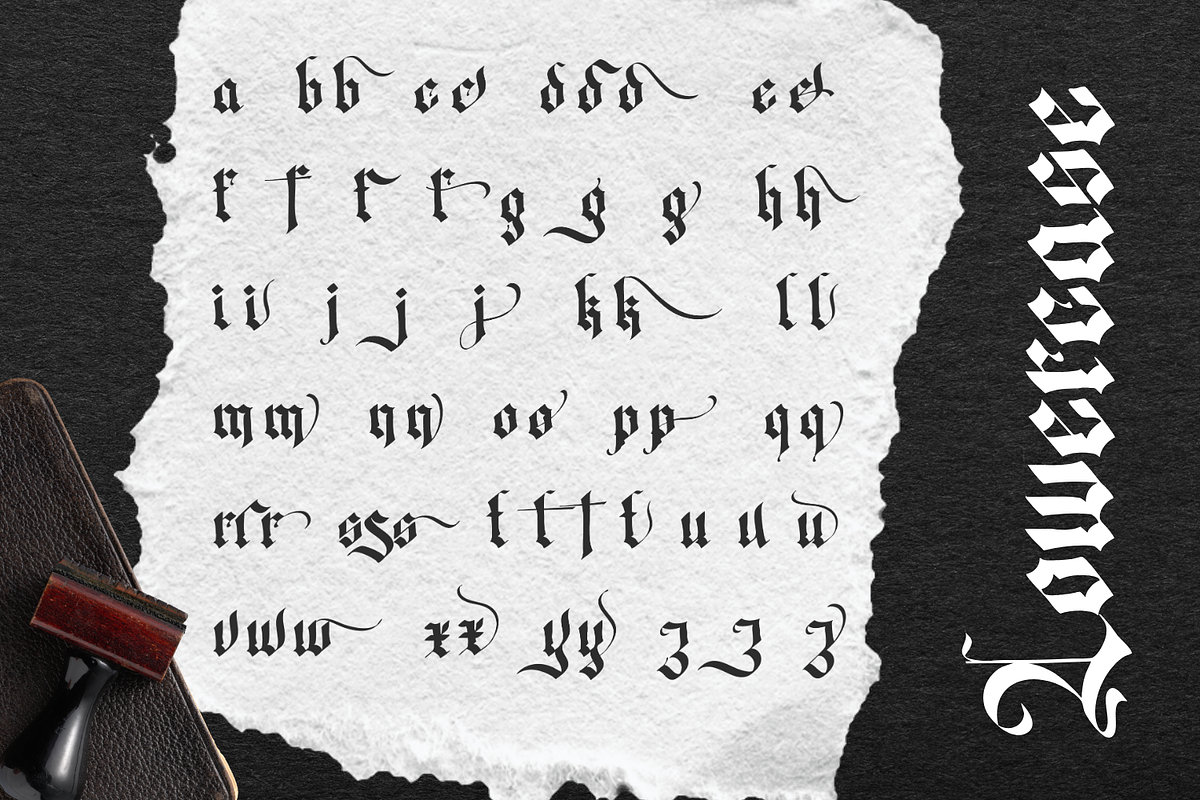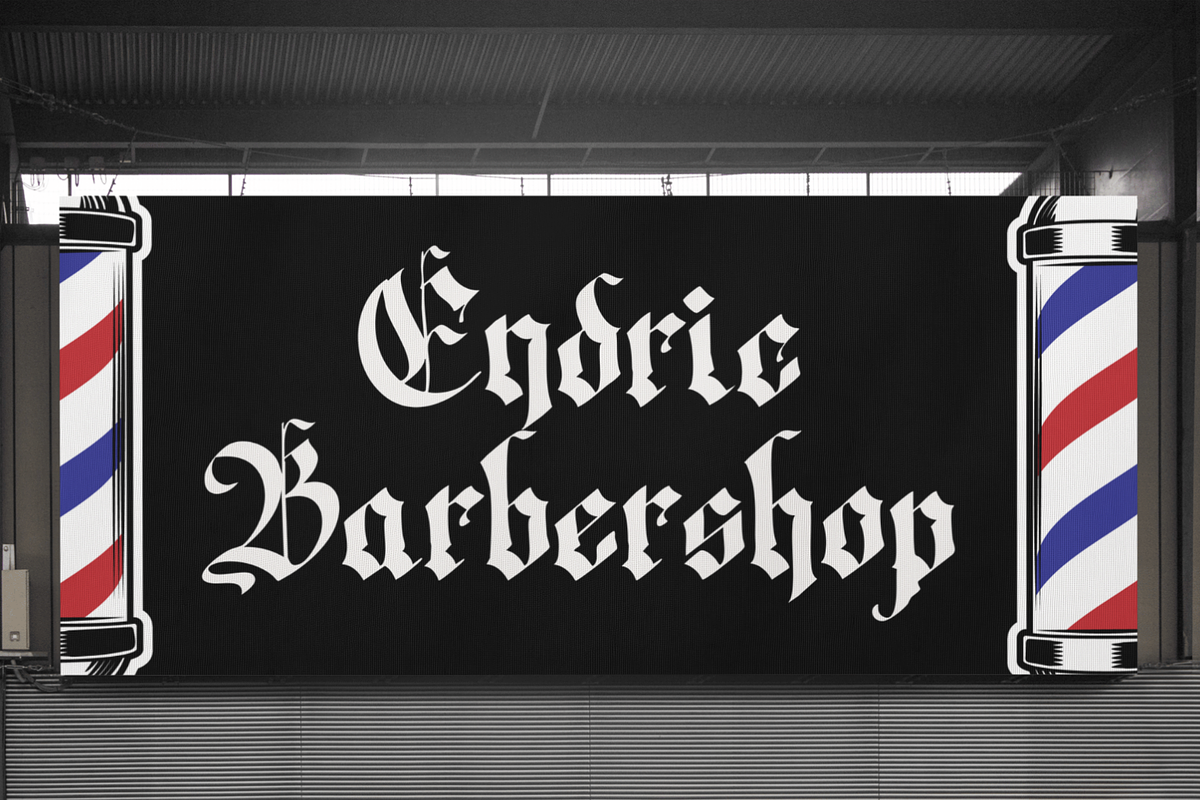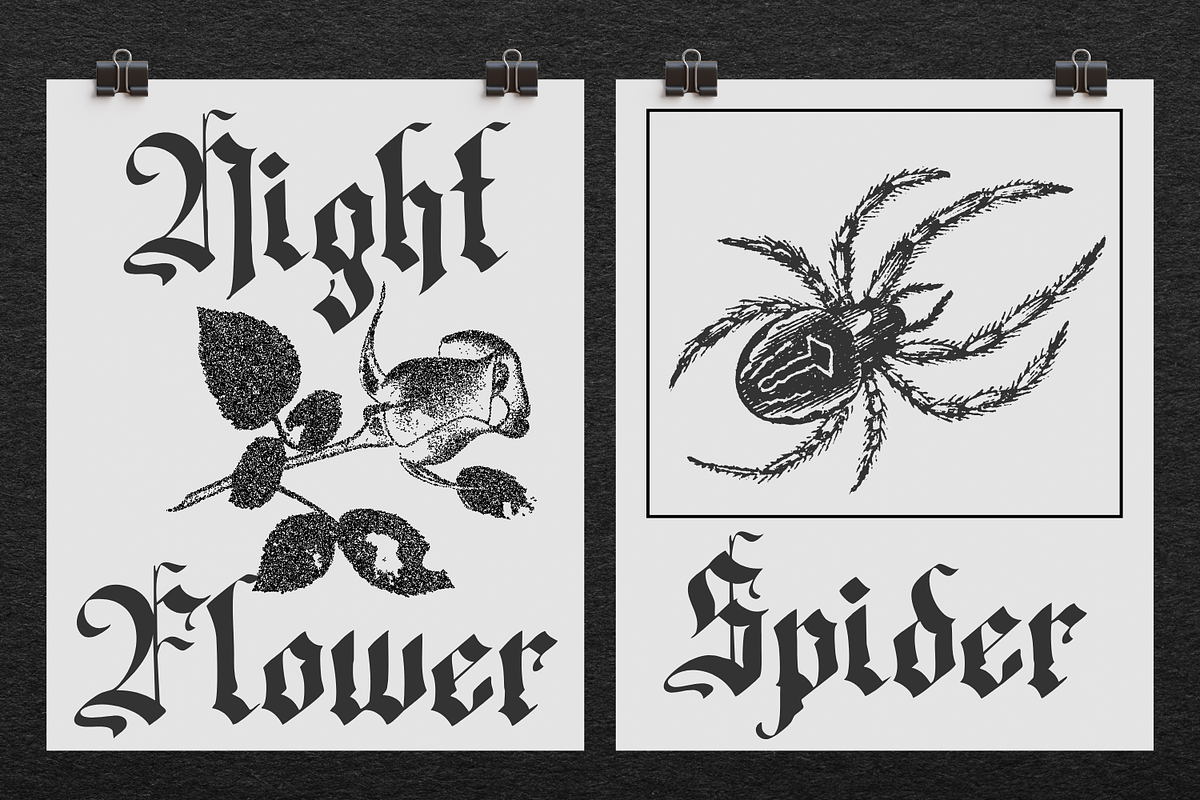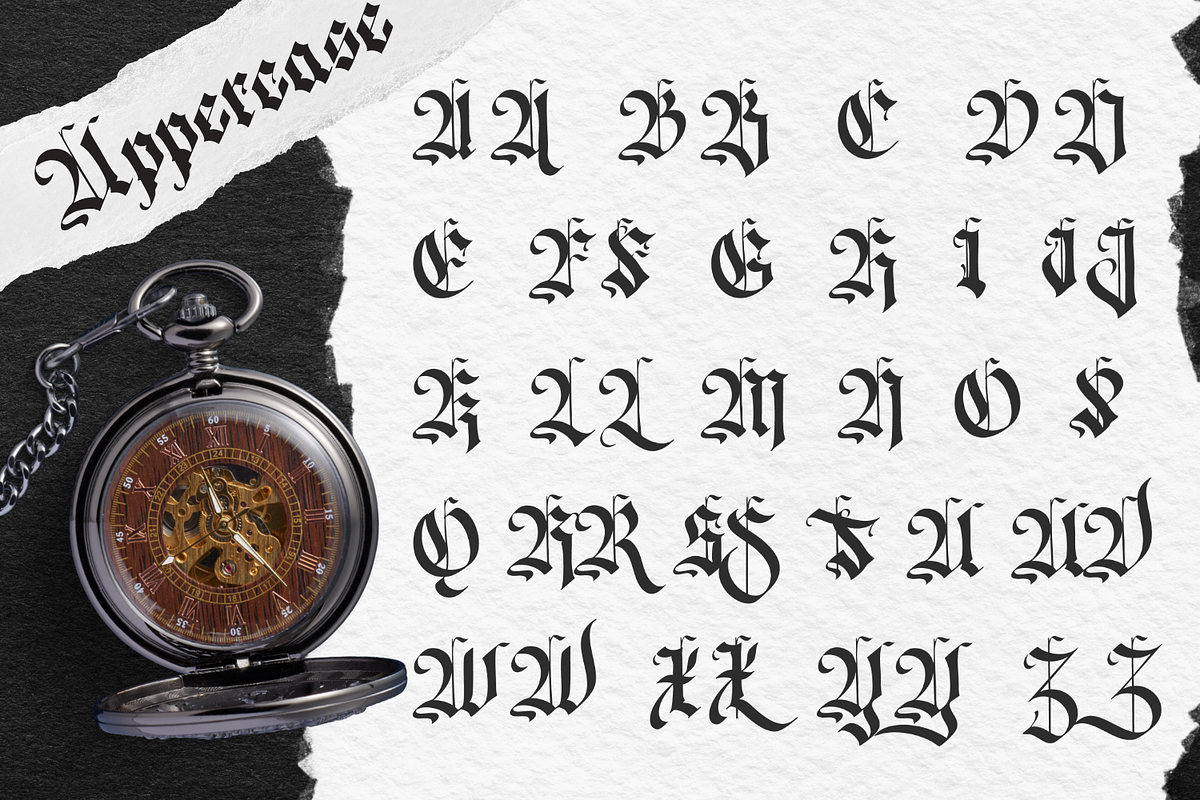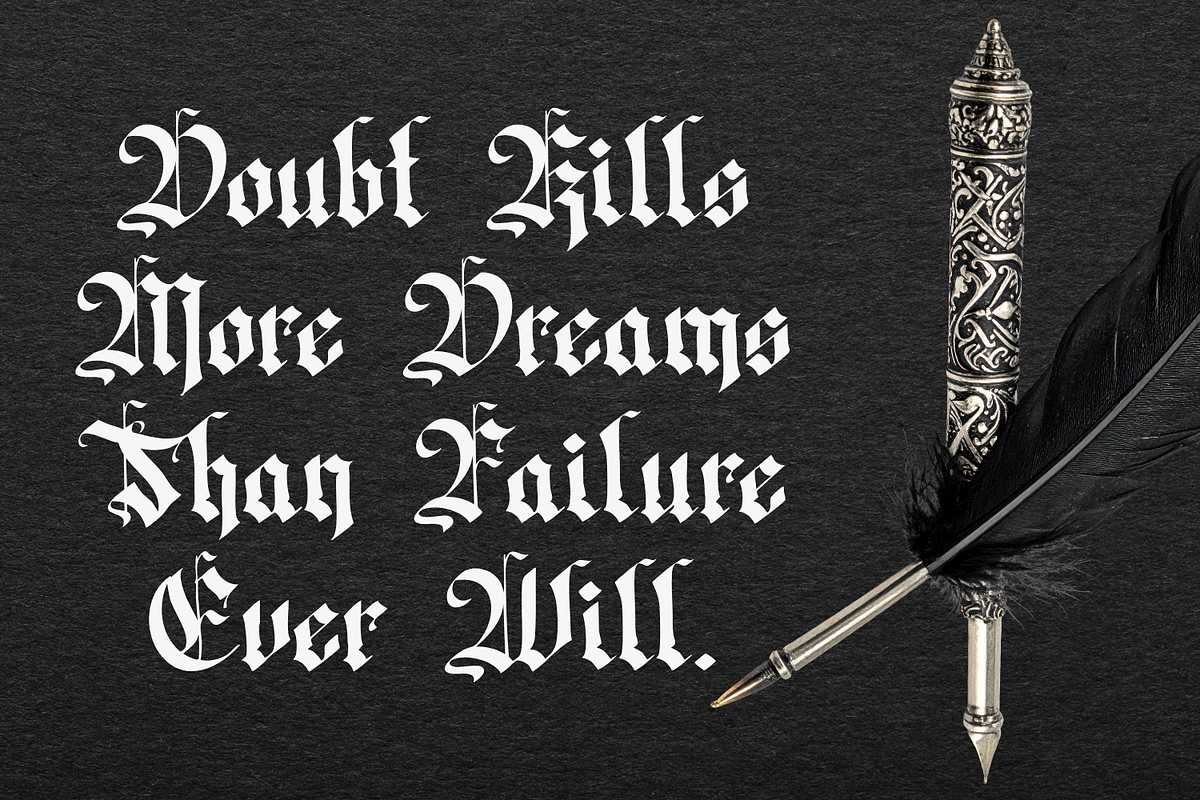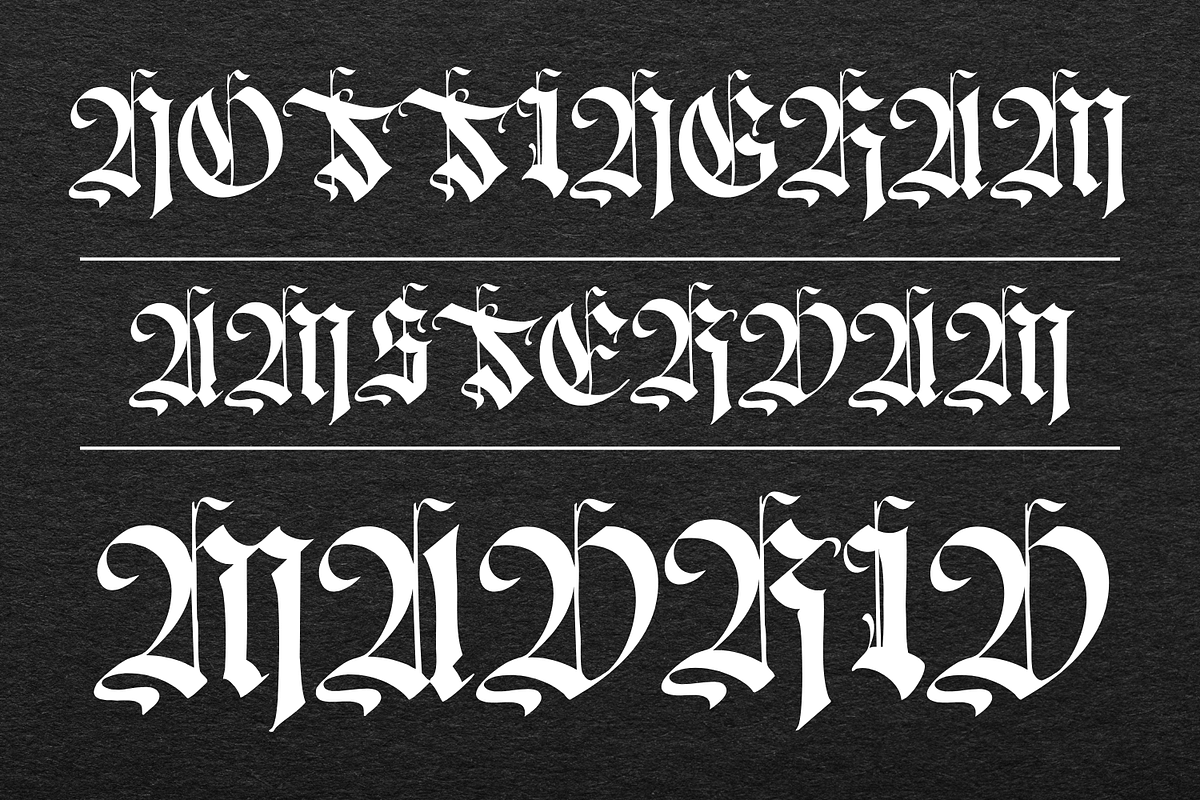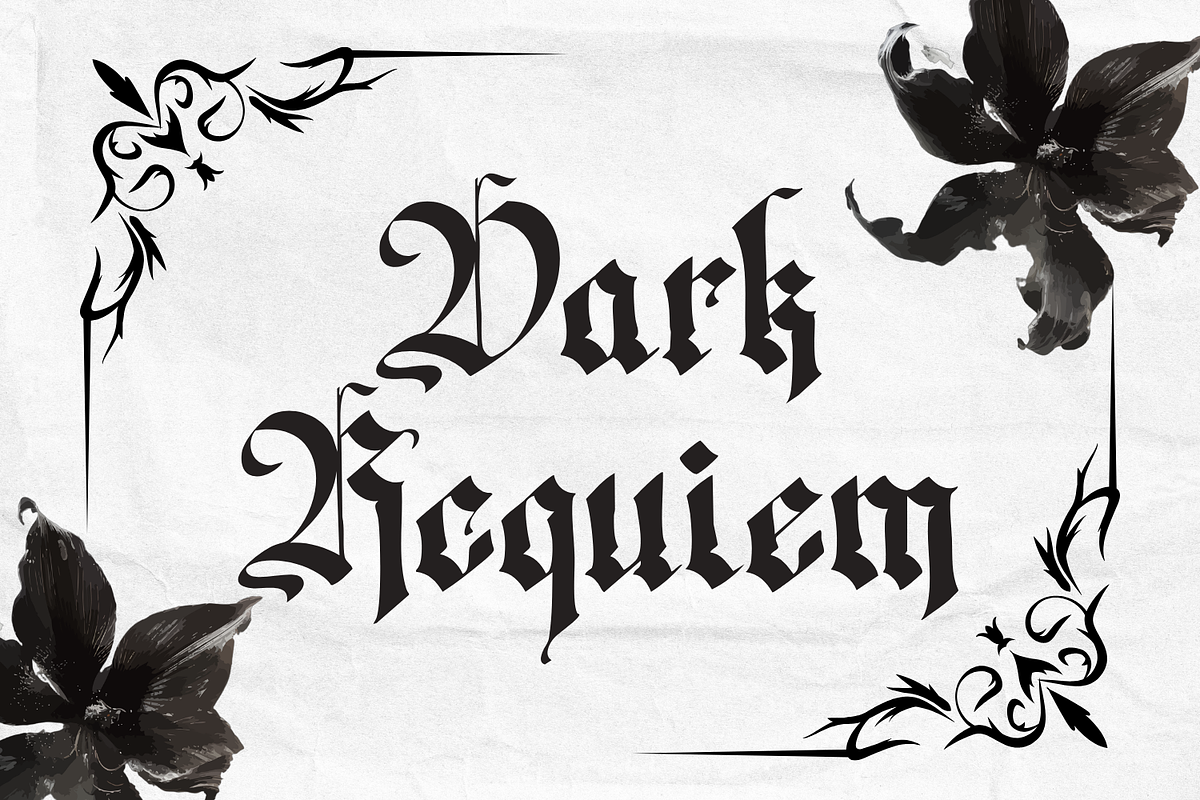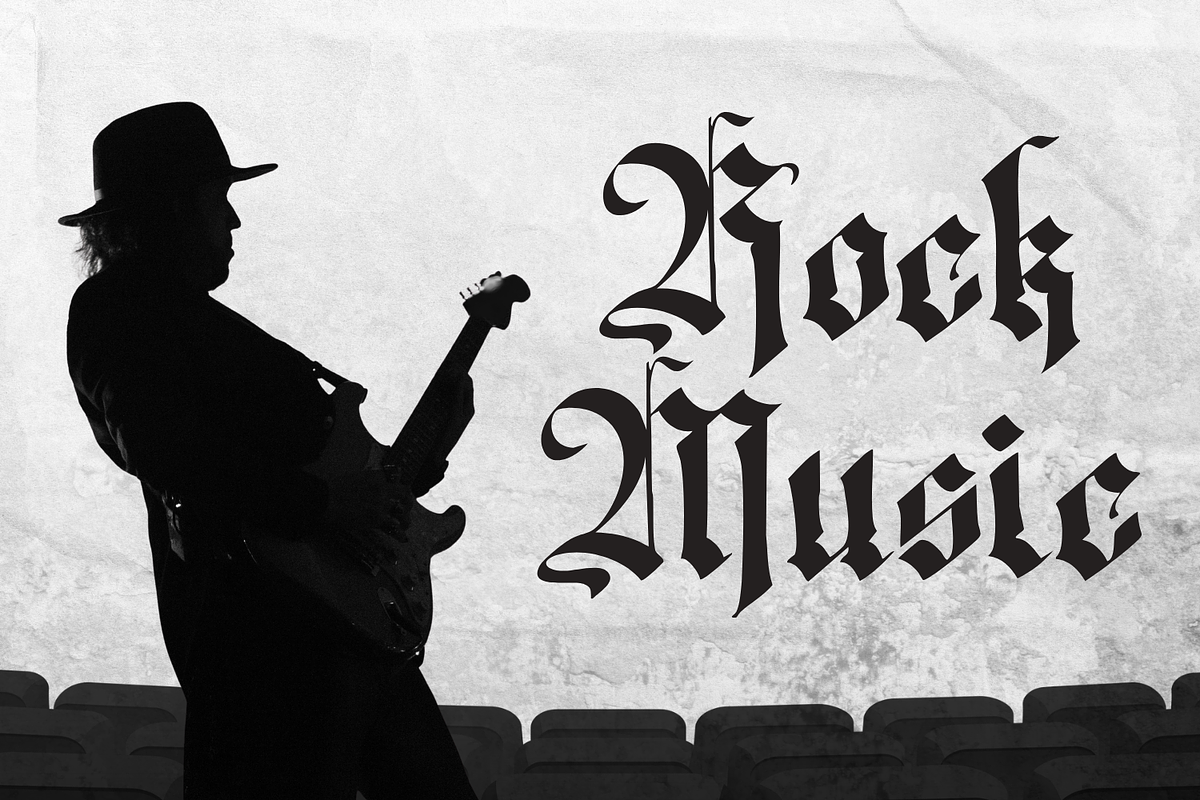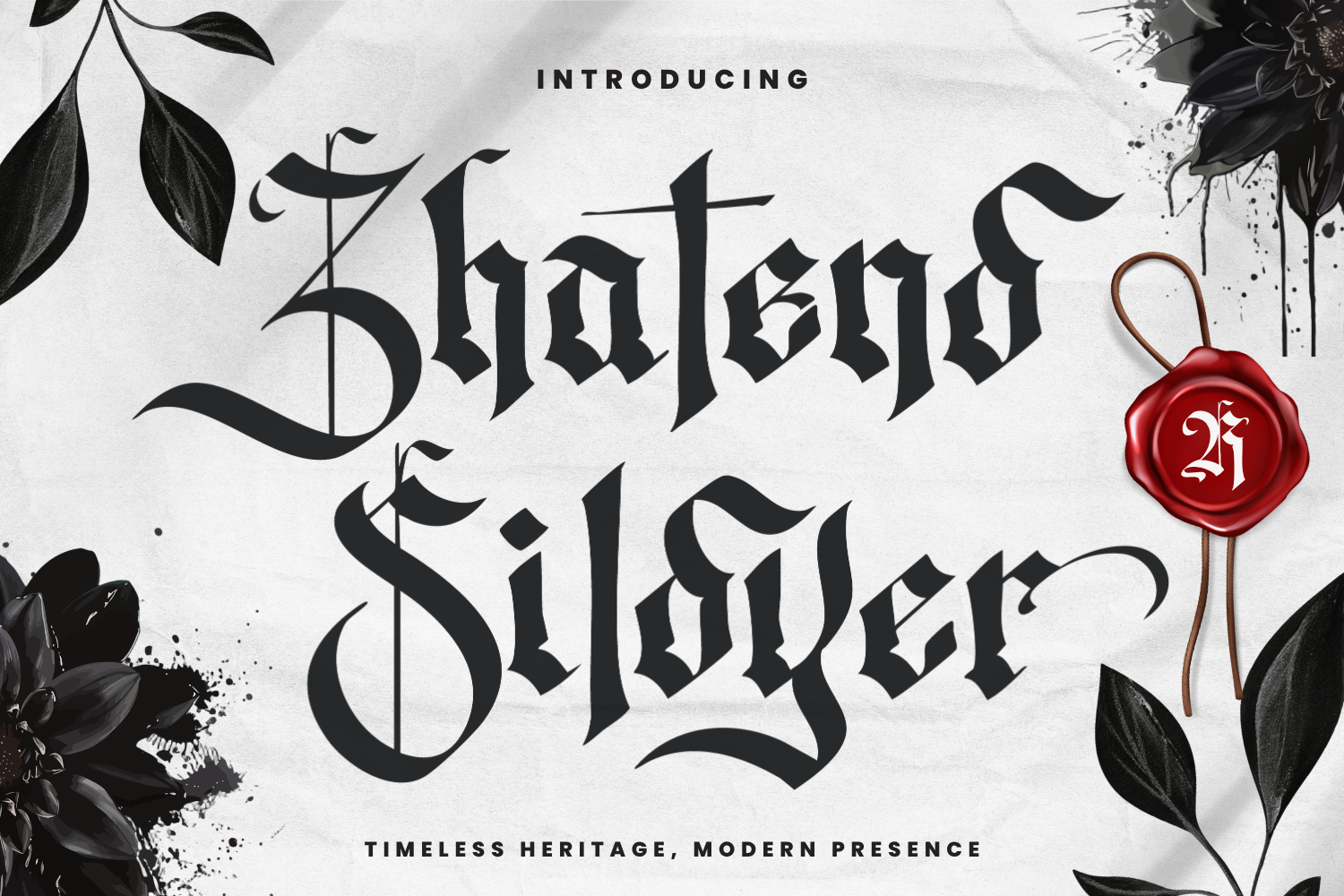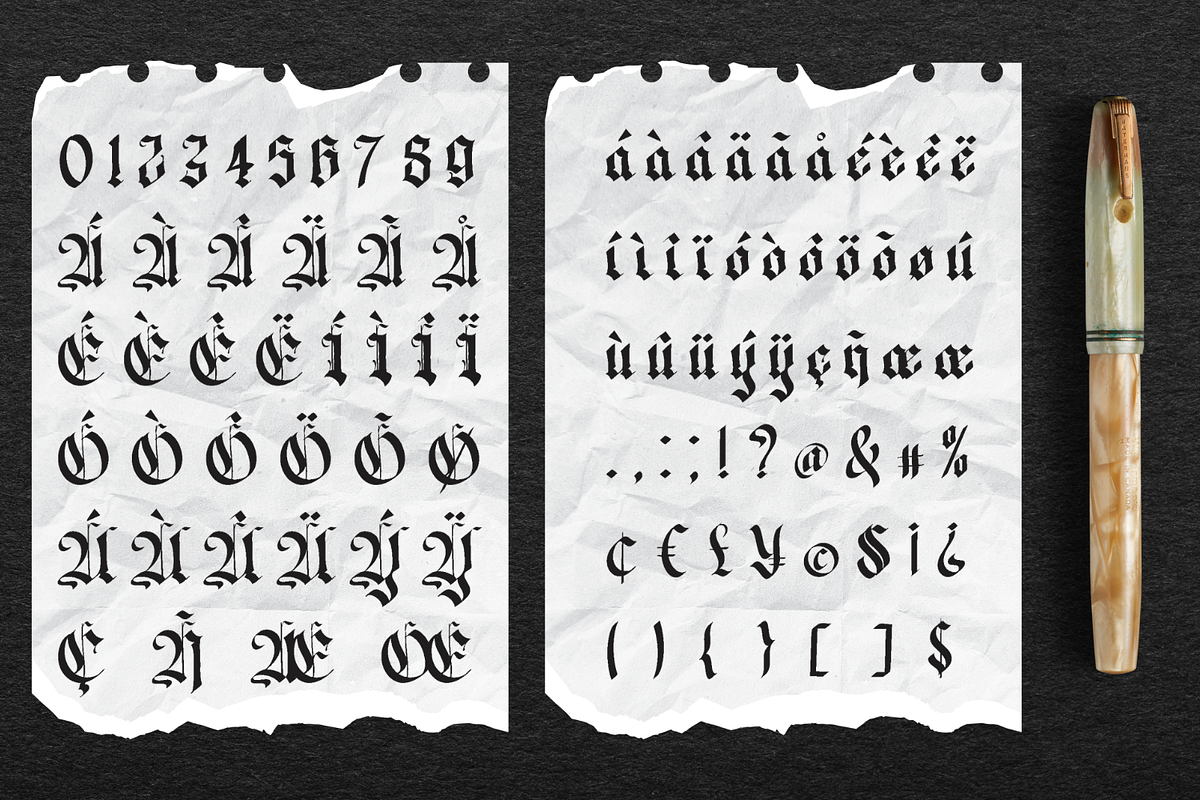
Zhatend Sildyer - Blackletter Font
Zhatend Sildyer - Elegant Blackletter Font
Introducing Zhatend Sildyer, a striking blackletter and gothic font that seamlessly blends the heritage of classic calligraphy with modern readability.
Crafted with sharp, meticulous pen-stroke details and elegant decorative curves, this font is designed to deliver a strong, bold, and highly premium aesthetic to your creative projects. Zhatend Sildyer is the perfect choice for adding a vintage, edgy, or exclusive handmade touch to your digital and print designs.
Perfectly Suited For:
Branding & Logotypes: Delivers a premium, high-end impression for creative studio logos, tattoo parlors, artisan cafes, and vintage-themed businesses.
Product Packaging & Labels: Highly captivating for coffee bean pouches, craft beverage labels, cosmetics, and artisan goods.
Print & Editorial Design: Stunning for event posters, music album covers, magazine headers, and dark-fantasy book covers.
Digital Art & Typography: Ideal for decorative typography quotes, vintage badges, and digital tattoo flash art.
Key Features Included:
Uppercase & Lowercase Characters: A majestic set of uppercase letters and dynamic, highly readable lowercase characters.
Stylistic Alternates & Swashes: Beautiful decorative modifications (especially on lowercase letters) featuring elegant curved tails to help you create unique, custom typography.
Complete Numerals & Punctuation: Fully supports both formal and creative text layouts.
Multilingual Support: Comprehensive language support covering accented characters and various global currency symbols.